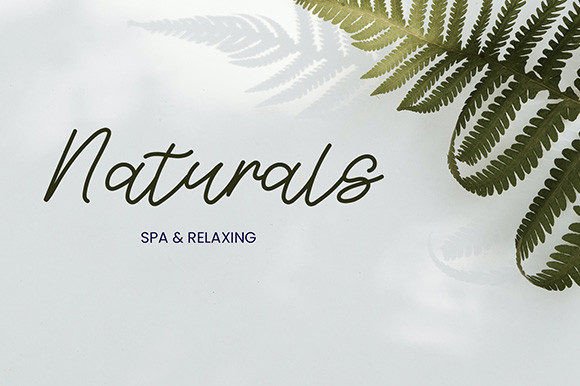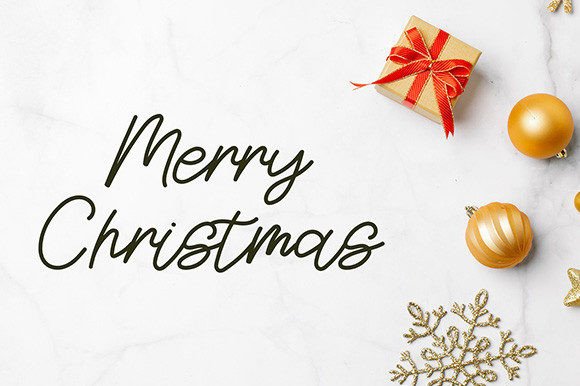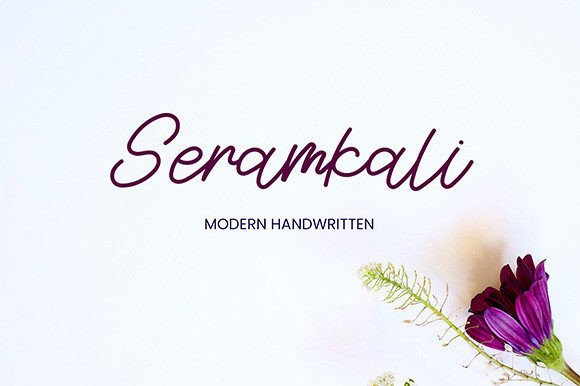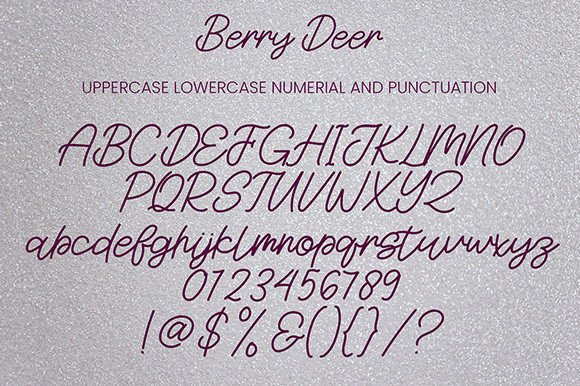
Discover the Charm of Berry Deer Font
Have you ever been browsing through a quaint little café, sipping on a latte, and stumbled upon a beautifully crafted quote on a chalkboard that just made your heart skip a beat? The way the words danced on the board, the playful strokes of the font, and the emotions it evoked – that’s the magic of a great font.
Introducing the Berry Deer Font, a modern handwritten font that’s perfect for adding a touch of whimsy to your designs. With its unique style and versatility, this font is ideal for a wide range of projects, from quotes and logos to blog headers and posters. Whether you’re a seasoned designer or just starting out, the Berry Deer Font is a valuable addition to your toolkit.
Berry Deer Font Key Features
- Font Family: Berry Deer is a unique, handwritten font designed to add a touch of elegance and sophistication to any design.
- Character Count: The font includes 256 characters, including uppercase and lowercase letters, numbers, and punctuation marks.
- Unique Characteristics: Berry Deer features a distinctive, flowing script style with subtle flourishes and irregularities, giving it a natural, handwritten feel.
Berry Deer Font Review
I recently had the chance to work with the Berry Deer Font, and overall, I was pleasantly surprised. Here are some of my thoughts:
- The unique blend of elegance and playfulness in the design makes it perfect for creating eye-catching titles and headings.
- The font is highly customizable, allowing users to adjust the weight, size, and spacing to suit their needs.
- The font’s script-like qualities make it ideal for creating a sense of movement and flow in text.
- The font may be too playful for some projects, such as corporate reports or formal documents.
- The script-like qualities can make the font difficult to read in certain contexts, such as in small text sizes or on low-resolution screens.
- The font may not be suitable for projects that require a high level of consistency and uniformity.
The Berry Deer Font is a great choice for designers who want to add a touch of whimsy and personality to their projects. While it may not be suitable for every project, it’s a great option for titles, headings, and other display text. With its unique design and high level of customizability, it’s definitely worth considering for your next design project.
Tips for Getting the Most Out of Berry Deer Font
For the best results, use Berry Deer Font in combination with other playful and whimsical design elements, such as illustrations and graphics. Experiment with different font sizes, colors, and styling options to create a unique and eye-catching design.
Berry Deer Font is perfect for creating playful and whimsical designs for children’s products, such as books, toys, and educational materials. It’s also great for creating festive and celebratory designs for holidays and special events.